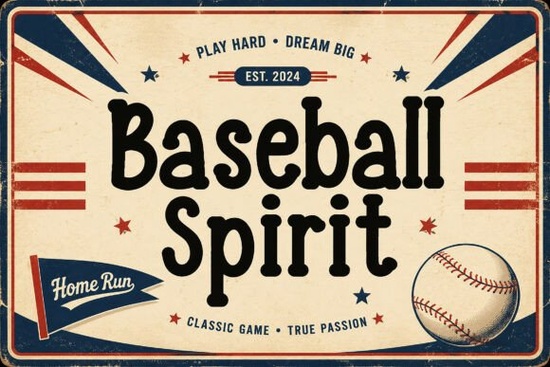
If you're hunting for a display font that captures the energy of America's favorite pastime, Baseball Spirit Font from Creative Fabrica is a solid choice. This bold, playful typeface draws straight from classic baseball culture – think vintage scoreboards, team pennants, and little league uniforms. Its rounded letters and friendly character design make it stand out instantly without being too loud. Whether you’re a print-on-demand seller designing sports merchandise or a crafter making custom T-shirts, this font delivers a cheerful, memorable look that fits the game-day spirit.
What makes Baseball Spirit Font different from other sports fonts?
Unlike many gritty, distressed sports fonts, Baseball Spirit keeps things clean and approachable. The rounded shapes feel inviting, almost like a friendly mascot. It's bold enough for headlines and large cuts, but its soft edges work well on kids' apparel too. The uppercase characters have a slight bounce to them, adding movement that mimics the action on the field. This makes it a great choice for team logos, event posters, and sticker designs where you want both energy and readability. If you need a more rugged script for contrast, check out the Thunder Font – it has a sharp, hand-drawn feel that pairs nicely with Baseball Spirit’s soft curves.
How can designers and crafters use this font in real projects?
Because Baseball Spirit is a display font, it shines in short, impactful text. Here are a few practical ways you can put it to work:
- Sports team gear: Use it for jersey numbers, team names, and mascot slogans. The bold weight keeps legible even on small items like hats or patches.
- Cricut and Silhouette projects: The clean outlines cut easily in vinyl and heat transfer material. Try it for baseball-themed wood signs, tumblers, or tote bags.
- Print-on-demand merchandise: Design baseball posters, game day banners, or hoodies with witty phrases. The playful style appeals to both kids and adults.
- Social media graphics: Combine with distressed textures or vintage baseball photos for Instagram posts or Facebook event covers.
For a western or rodeo twist, Cactus Rodeo Font offers a similar bold, playful vibe but with a desert flair. And if you need an elegant script to balance the bold display letters, Tailyona Font provides smooth, flowing alternatives.
Is Baseball Spirit Font suitable for cutting machines like Cricut?
Absolutely. The font’s consistent stroke widths and open shapes mean fewer weeding headaches. Because it’s designed as a display font, the letters don’t have thin hairlines that can break or lift. You can use it right out of the box for layered designs, stencils, and even 3D cardstock projects. For beginners, the rounded edges are forgiving when cutting with adhesive vinyl. If you are working on a large project with multiple fonts, the collection bundle of display fonts can save you time and money – it includes Baseball Spirit along with other versatile typefaces.
What other display fonts work well with Baseball Spirit?
Pairing fonts is key for professional-looking designs. Here are a few that complement Baseball Spirit without fighting for attention:
- Baseball Spirit + Thunder Font: Use Thunder for sporty subheadings or player names, and Baseball Spirit for the main team title.
- Baseball Spirit + Cactus Rodeo Font: Great for baseball + barbecue events or Little League fundraisers with a southwestern theme.
- Baseball Spirit + Tailyona Font: Use Tailyona for the script “Home Run” or “MVP” and Baseball Spirit for the big numbers.
When mixing fonts, keep a consistent mood – all playful, all bold, and all readable from a distance.
- ☐ Decide on your project type – apparel, sticker, poster, or digital graphic.
- ☐ Test Baseball Spirit Font in short phrases first; display fonts work best with 2–5 words.
- ☐ Pair it with a simple sans-serif for body text if needed.
- ☐ Try a mockup with a vintage baseball color palette (cream, navy, red, forest green).